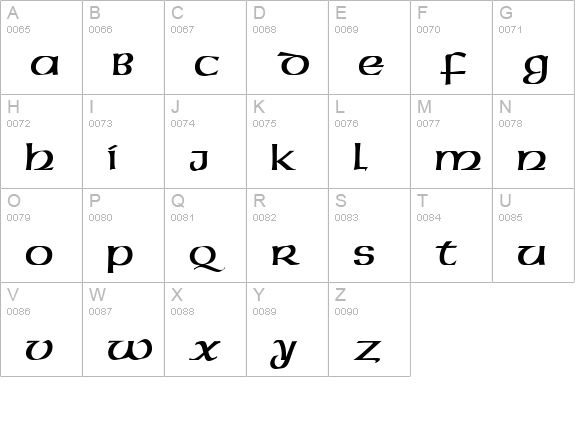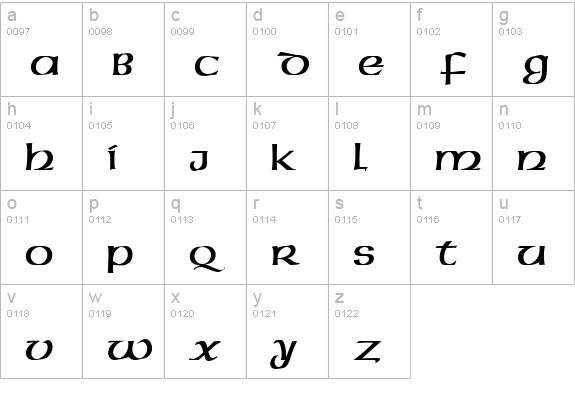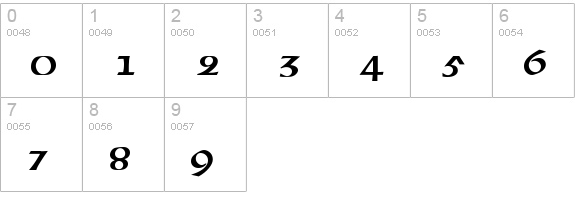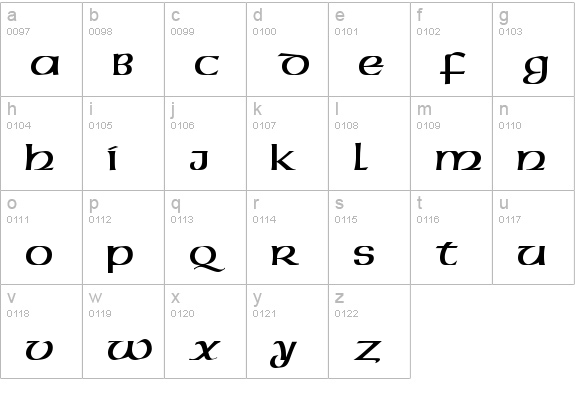
QTUSA-Uncial Regular Font Details
QTUSA-Uncial Regular is the standard, neutral variant in the QTUSA typeface family \xE2\x80\x94 well suited to general body text, paragraphs, and standard typographic work.
Introducing QTUSA-Uncial Regular, a captivating and versatile font that will elevate your designs to new heights. This font embodies the timeless beauty of uncial calligraphy, with its elegant curves and distinctive flourishes. Whether you are designing invitations, logos, or headlines, QTUSA-Uncial Regular will add a touch of sophistication and elegance to your projects. What sets QTUSA-Uncial Regular apart is not just its stunning aesthetics, but also its versatility. This font is perfect for both digital and print designs, making it suitable for a wide range of applications. Its legibility ensures that your message will be conveyed with clarity and impact, while its unique personality adds a touch of individuality to your designs. But what makes QTUSA-Uncial Regular truly special is that it is completely free! Yes, you read that right. This font is freely available to download at FontsMarket.com, allowing you to enhance your designs without breaking the bank. Whether you are a professional designer or a hobbyist, this font is a valuable addition to your toolkit. So, why wait? Unlock the creative possibilities with QTUSA-Uncial Regular and let your designs shine. Download this captivating font today at FontsMarket.com and elevate your projects to a whole new level of excellence.